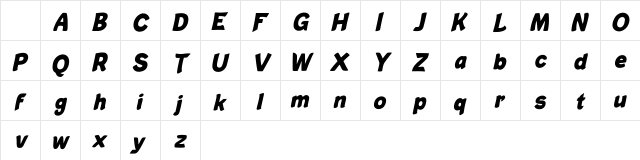
Complete Christopher Done Italic glyph index. Displaying only characters natively supported by Christopher Done Italic font.
Christopher Done Italic is a composed and adaptable typeface that performs quietly and consistently across a wide range of design contexts. The slanted form adds forward momentum and visual energy.
Pro Tip: Use Christopher Done Italic for emphasis, pull quotes, and subheadings where its slanted energy can add rhythm to the layout.